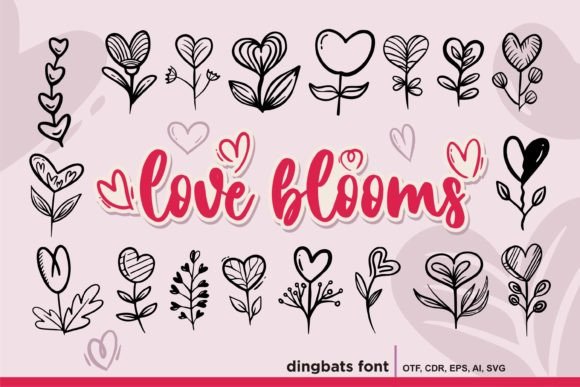
Introducing Love Blooms Font, the best font for love poems! Designed by onoborgol, this romantic and useful dingbats font is perfect for expressing your love through creative designs.
Love Blooms Font is a unique hand-drawn font that will add a touch of elegance to your designs. Its intricate details are perfect for decorating designs or plans, crafting, digital designing, presentations or greeting card making, and more. This versatile font will make your designs stand out and captivate your audience.
Express your love through creative designs with Love Blooms Font. With its delicate details and romantic feel, this dingbats font is the perfect addition to any project. Whether you're creating a love poem or a heartfelt greeting card, Love Blooms Font will elevate your design and evoke emotions in your audience.
Let your creativity bloom with Love Blooms Font. Add it to your collection of design tools, and unlock endless possibilities for your creative ideas. Download Love Blooms Font today and bring your designs to life with its unique charm and beauty.
In conclusion, Love Blooms Font is not just another dingbats font. It is the perfect font for expressing love, passion, and romance. With its intricate details and romantic feel, Love Blooms Font will elevate your designs and captivate your audience. So what are you waiting for? Download Love Blooms Font now and let your creativity bloom!